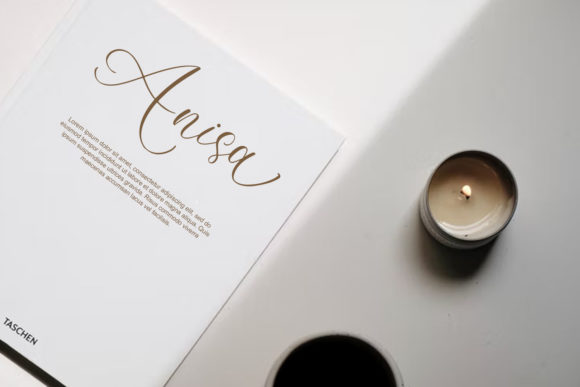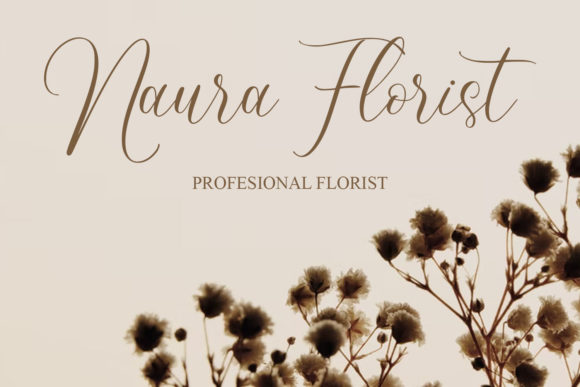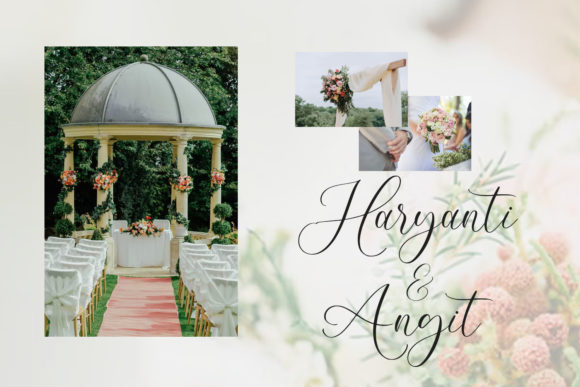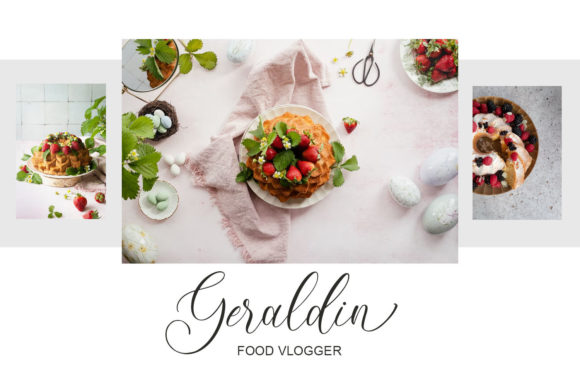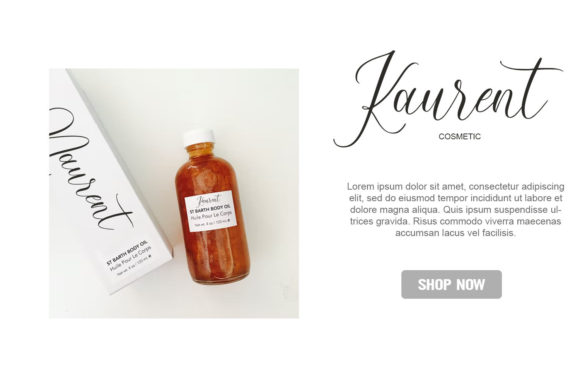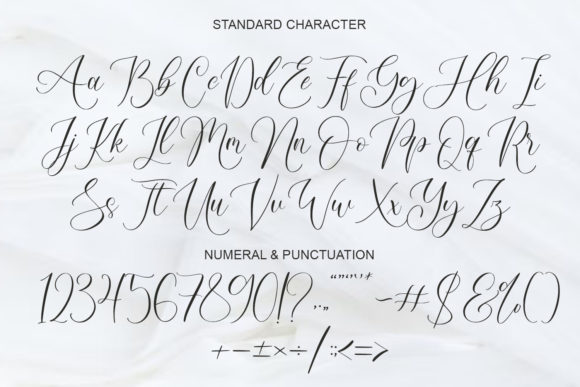
Introduction to Monalitta Font
As a designer, there’s nothing quite like the thrill of bringing a creative project to life. The moment when a concept transforms into a stunning visual representation, and you know you’ve nailed it. For me, that moment often starts with the right font. And, in recent times, I’ve been hooked on the Monalitta Font – a sleek, modern script font that adds a touch of luxury to any design.
What I love about Monalitta Font is its versatility. Whether you’re working on a high-end advertising campaign, crafting a book cover, or designing a logo, this font is sure to elevate your design to new heights. Its thin, handwritten style is not only visually appealing but also perfect for creating a sense of sophistication and elegance. And, with its PUA encoding, you can access a wide range of glyphs and ligatures with ease, making it a valuable resource for any designer.
Key Features of Monalitta Font
- High-quality, elegant script font suitable for creative projects
- Comes with transparent background, allowing for easy customization and versatility
- Available in a range of sizes, with a minimum resolution of 300 DPI for high-quality printing
- Unique, hand-drawn design elements that add a touch of sophistication to any design project
- Perfect for use in branding, packaging, and other creative projects where a high-end, elegant look is desired
Honest Review: Monalitta Font
I recently came across the Monalitta Font while searching for a unique design resource to enhance my creative project. I was drawn to its elegant and sophisticated style, perfect for a high-end brand or luxury product. After giving it a try, here are my thoughts on this font.
- ✨ High-quality design: The Monalitta Font is incredibly detailed and well-crafted, making it a great choice for any design project.
- ✨ Versatile: This font is suitable for both digital and print projects, offering a lot of flexibility for designers.
- ✨ Transparent background: The font includes a transparent background, making it easy to use on top of any design element.
- ⚠️ Limited language support: Unfortunately, the Monalitta Font only supports a limited number of languages, which may be a drawback for designers working on international projects.
- ⚠️ Not suitable for body text: Due to its elegant and ornate design, the Monalitta Font is better suited for headlines and titles rather than body text.
Overall, I was impressed with the Monalitta Font’s high-quality design and versatility. While it may have some limitations, it’s still a great addition to any design resource library. I’d definitely recommend it to designers working on creative projects that require a touch of elegance and sophistication.
Tips for Getting the Most Out of Monalitta Font
Use the Monalitta Font in combination with other design elements to create visually appealing graphics. Experiment with different font sizes, colors, and styles to achieve the desired look. Use the transparent background feature to create stunning designs.
Common Use Cases for Monalitta Font
The Monalitta Font is ideal for use in creative projects such as graphic design, digital art, and typography. It is also suitable for use in business presentations, marketing materials, and websites. Use the font to add a touch of elegance and sophistication to your designs.